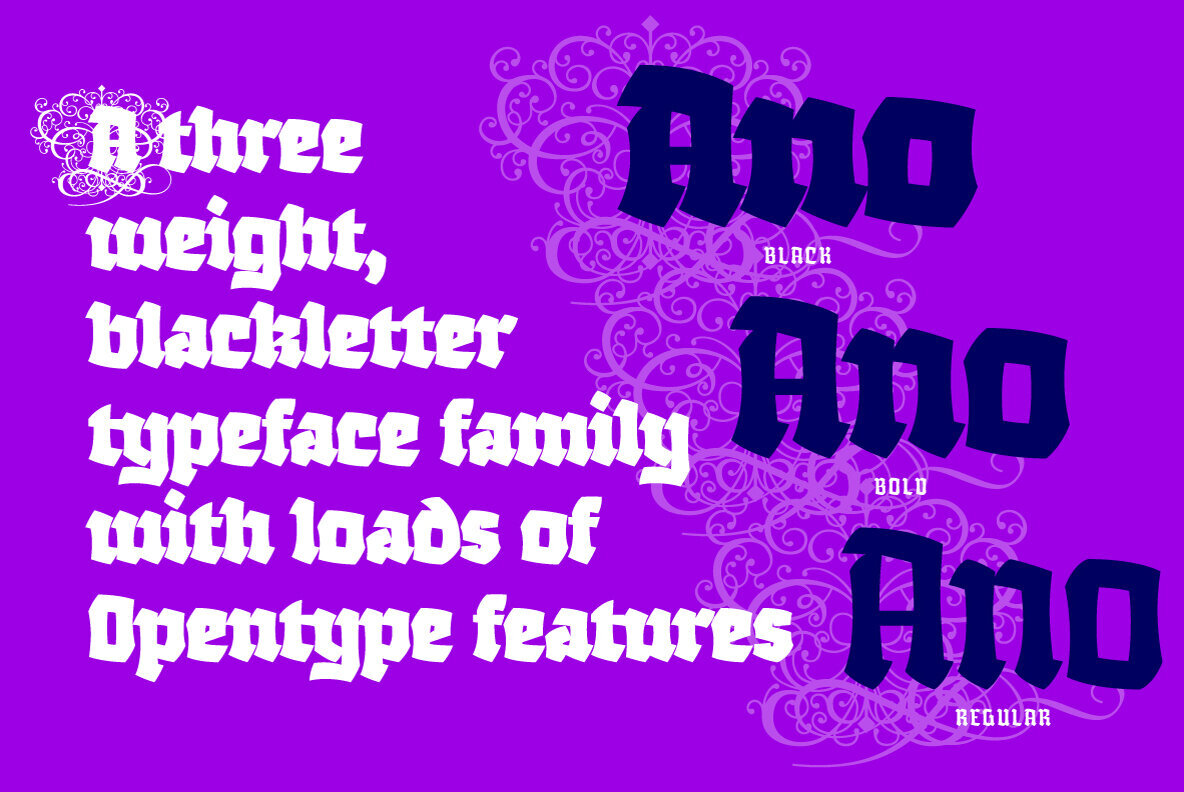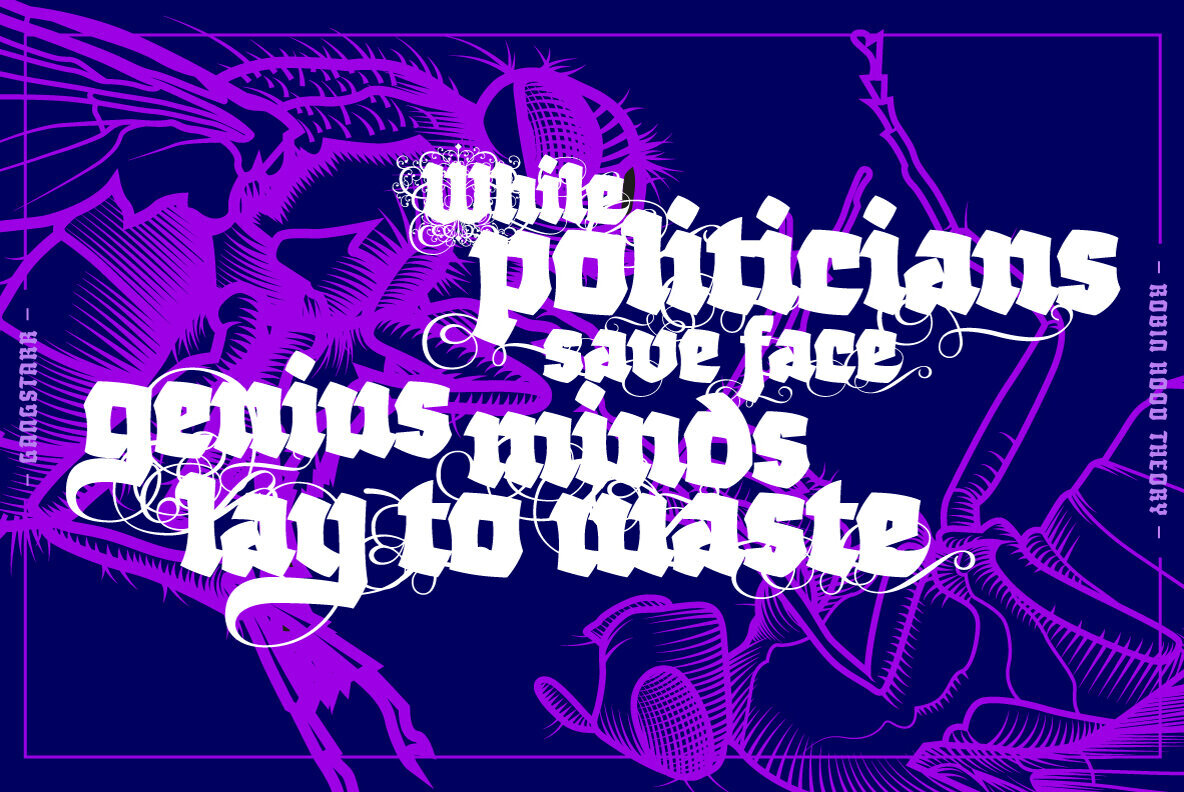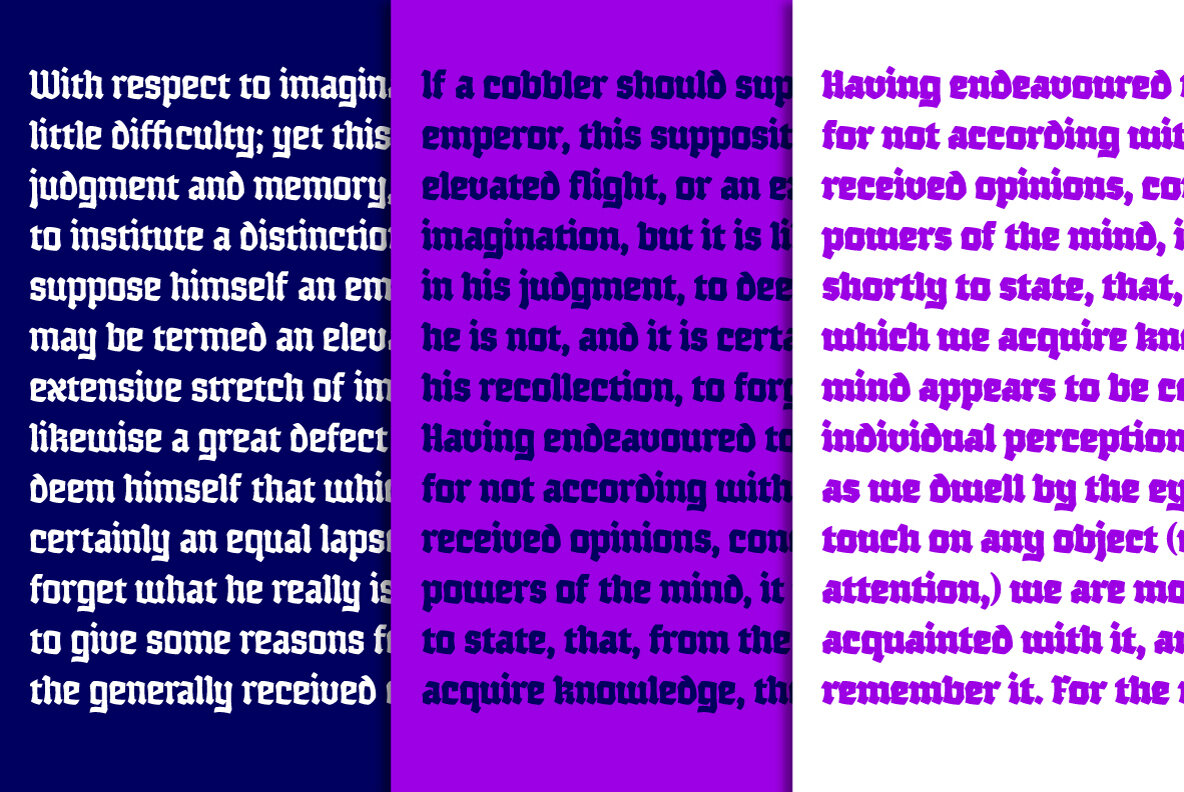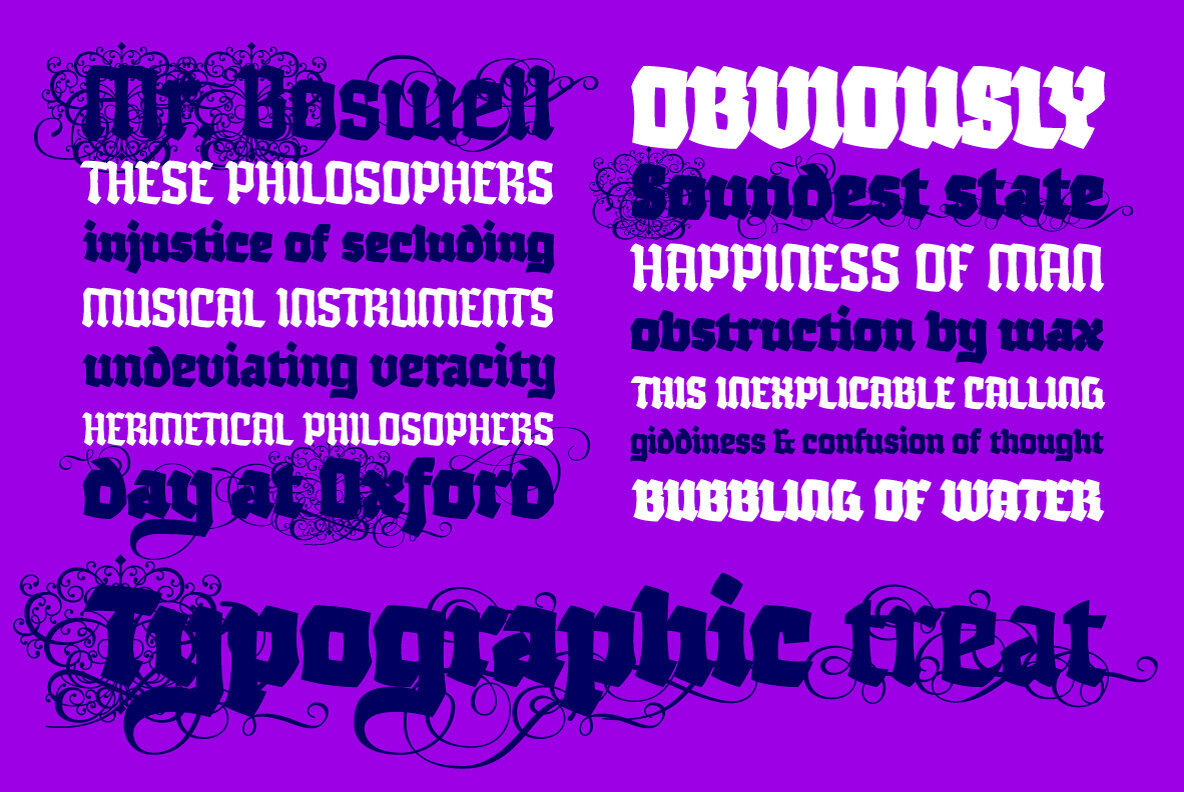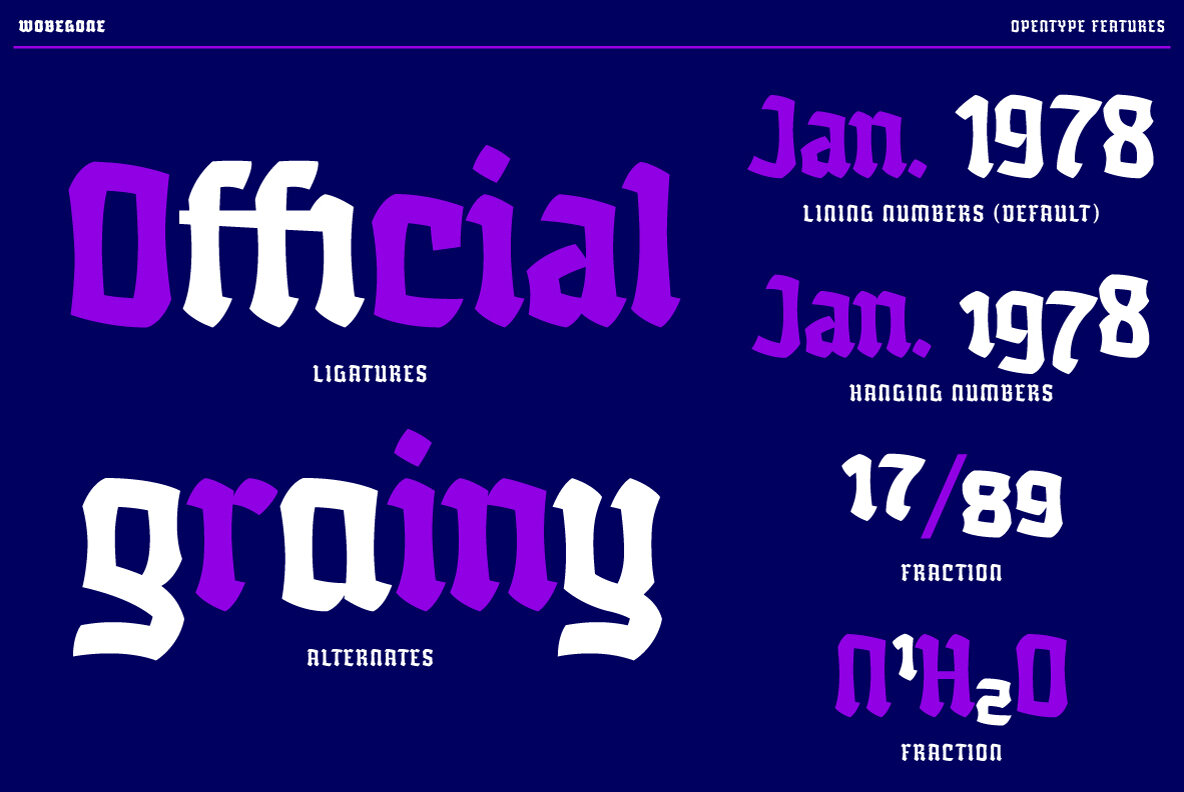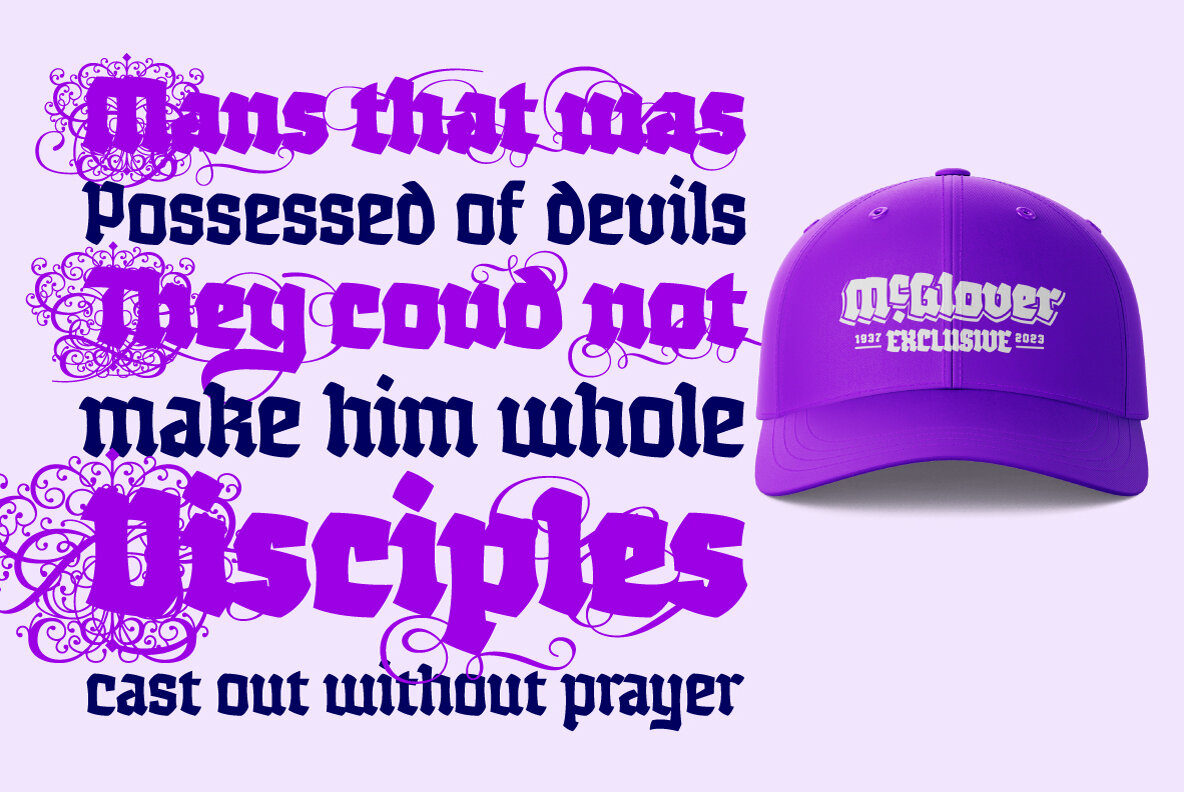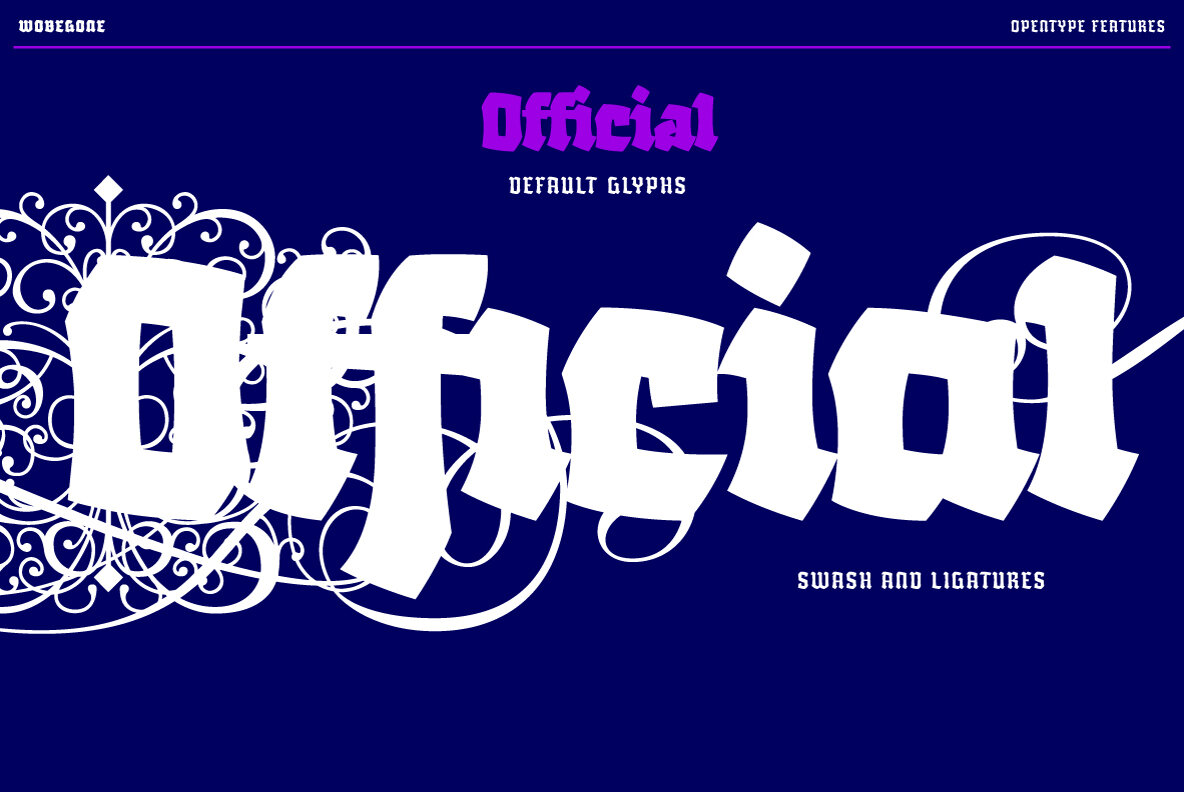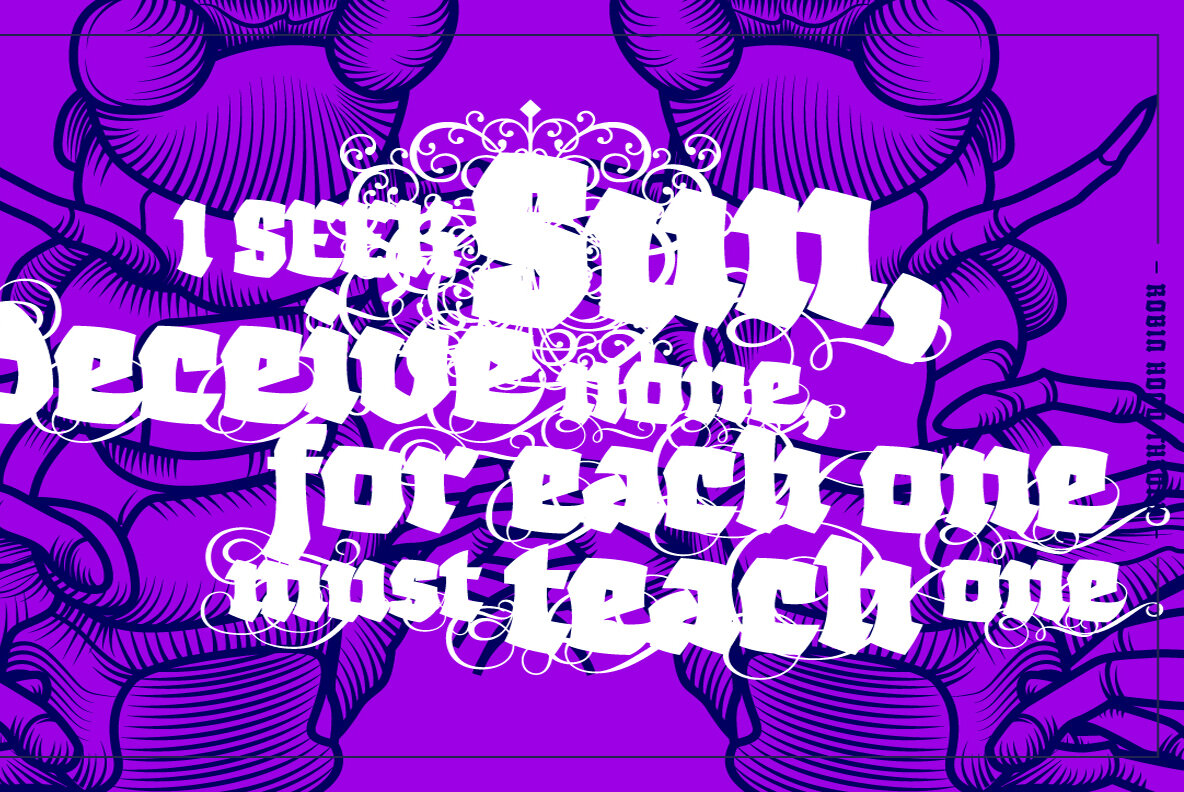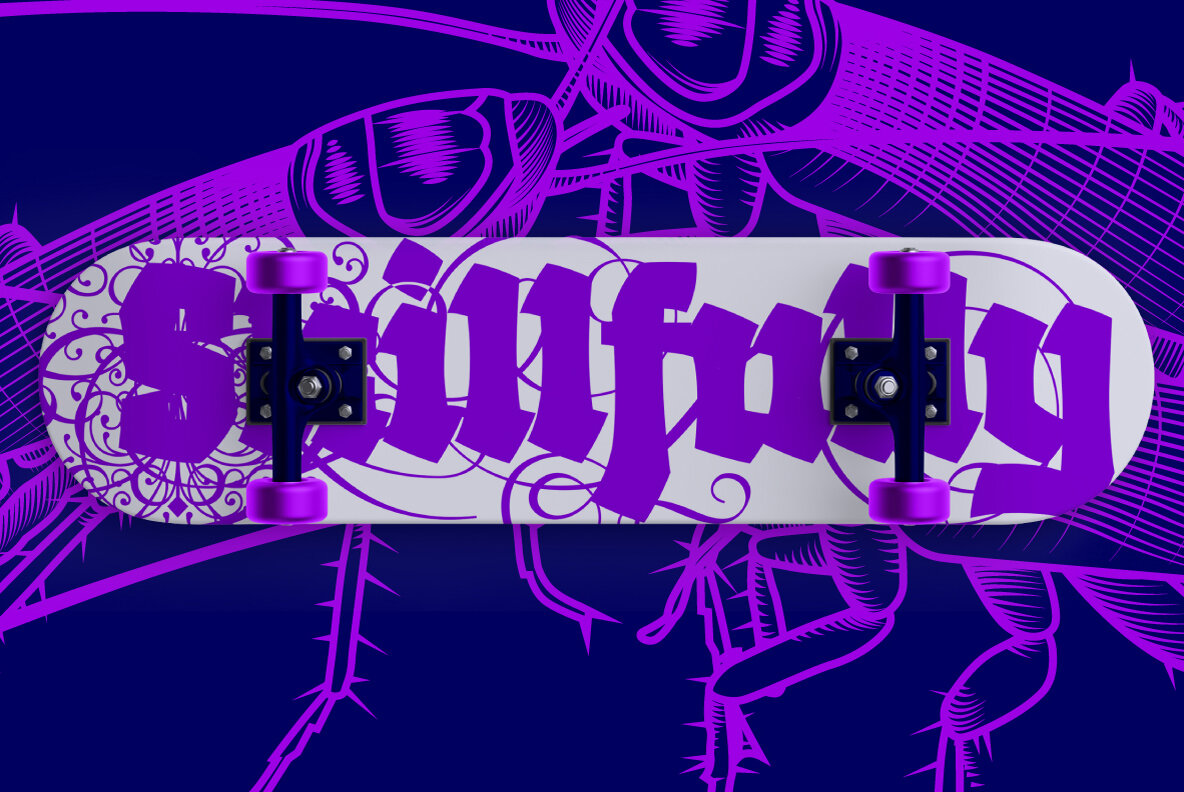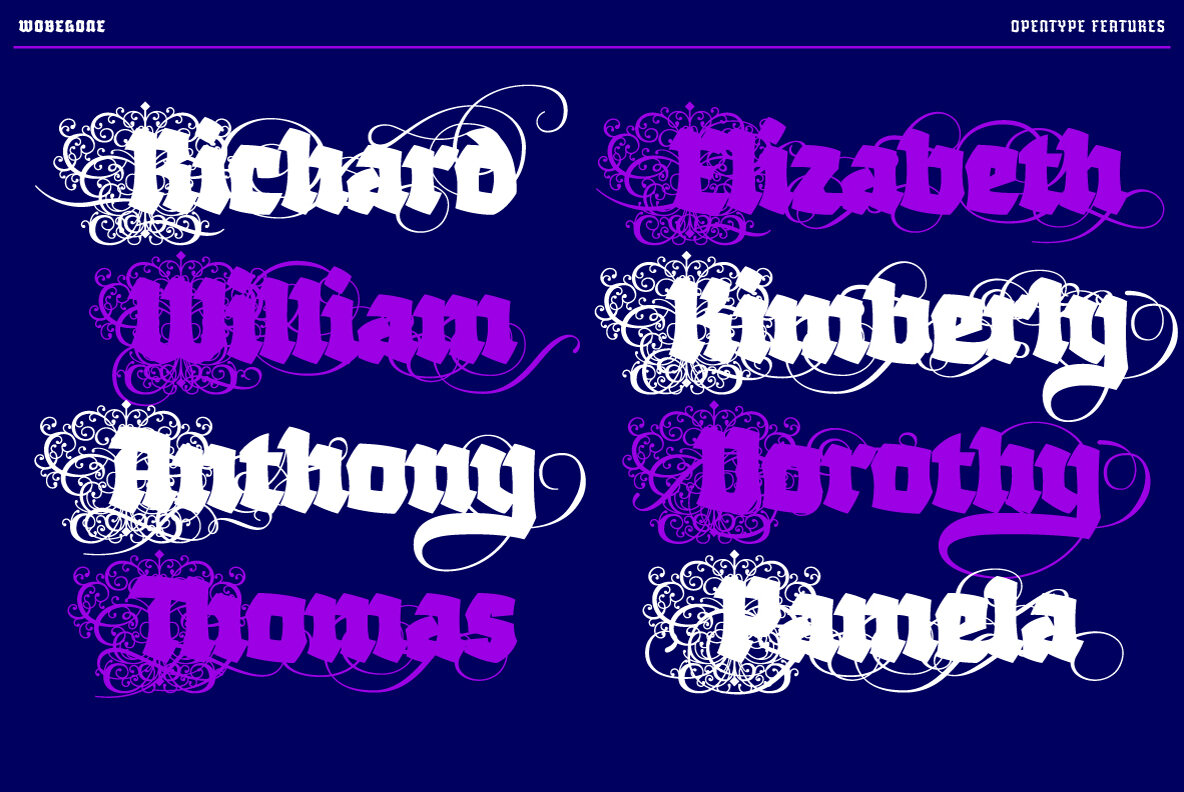
Wobegone Font
Wobegone is a three weight, textura inspired blackletter typeface family. Designed for use in titles, branding and other short passages of text, it contains a range of Opentype features that allow further exploration and solutions, ranging from ligatures, alternative letters to elaborate and decorative swash letters that can be seamlessly integrated into your content.
With a large character set that covers most latin based languages, Wobegone aims to be a versatile and distinctive solution for your future designs.